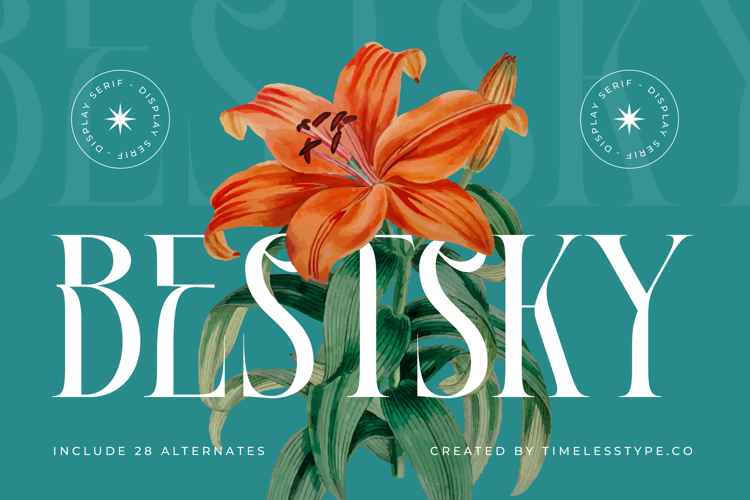
Bestsky - Display Serif Font
The Bestsky Typeface is a modern display serif font with a tall, sleek, and elegant style. Featuring 28 stylistic alternates, this font offers creative flexibility to craft typography that is artistic, refined, and full of character. Its thin strokes with sharp contrasts bring a sophisticated, contemporary feel, making it the perfect choice for designs that highlight elegance and premium appeal.
This typeface is highly effective in editorial design, particularly for fashion magazines, art features, book covers, and exclusive layouts. The stylistic alternates provide versatility, allowing designers to create text compositions that are varied and distinctive.
In branding and packaging, Bestsky is ideal for cosmetics, perfumes, wines, jewelry, and luxury fashion brands. Its refined aesthetic creates an exclusive visual identity, making logos and packaging appear more iconic and memorable.
For entertainment and promotional design, this font works beautifully on movie posters, album covers, art promotions, and cultural festival branding. Its thin yet elegant serif style delivers a theatrical touch that captures attention.
In the realm of digital design, Bestsky performs seamlessly across social media content, website branding, digital advertising, and motion graphics. With multilingual support, it adapts easily to international projects while maintaining its distinctive style.
In short, Bestsky Typeface is a modern serif display font designed to bring elegance, luxury, and contemporary charm. Perfect for editorial, branding, packaging, advertising, entertainment, and digital campaigns, this font transforms typography into a timeless and stylish visual icon.